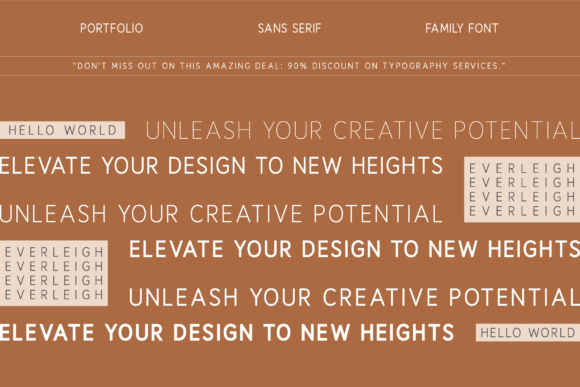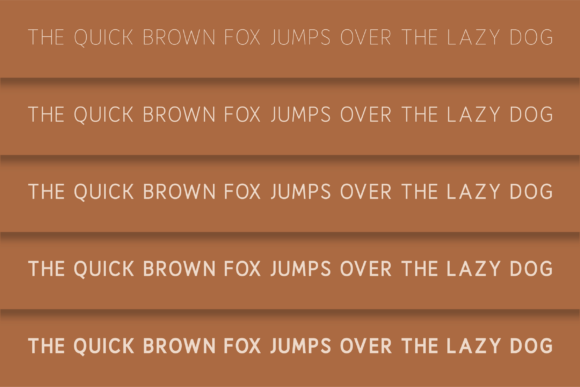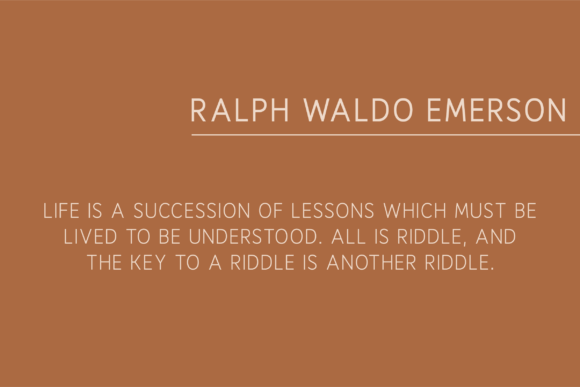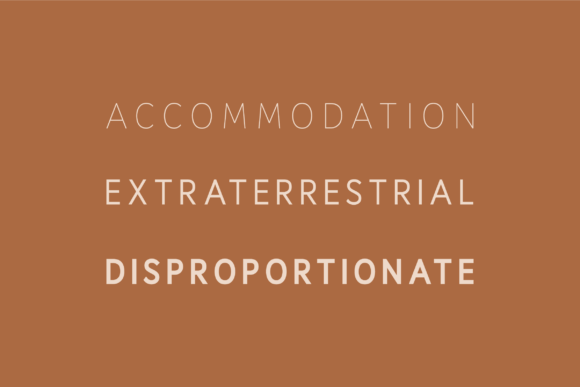
Introducing Everleigh Font Family: A Masterpiece of Elegance and Minimalism
Have you ever been in the middle of a design project, and suddenly, you’re stuck on finding the perfect font? I recall a recent experience where I was working on a magazine layout, and my client requested a font that exuded sophistication and simplicity. After hours of scouring through font libraries, I stumbled upon Everleigh Font, and it was love at first sight! In this article, I’ll share my journey with Everleigh Font, its features, and how to make the most of it in your designs.
What Makes Everleigh Font Special?
Everleigh Font is a meticulously crafted sans-serif font family that redefines modern design. It features 5 distinct weights, offering unparalleled versatility and making it suitable for a wide range of projects, from magazines and logos to film posters and more.
Designed with precision and an eye for detail, Everleigh Font strikes the perfect balance between sophistication and simplicity. This balance allows your creations to exude timeless charm and contemporary luxury.
An Honest Review of Everleigh Font
What I Love About Everleigh Font
- ✨ Versatility: With 5 weights, Everleigh Font adapts seamlessly to various design projects.
- ✅ Elegant and Minimalist: The font’s clean lines and sophisticated feel make it perfect for designs that require a touch of luxury.
- 💡 OpenType Features: Everleigh Font comes with a range of OpenType features, including stylistic alternates and glyphs, which can elevate your designs.
⚠️ While Everleigh Font is incredibly versatile, there are a few things to keep in mind:
- 🤔 Limited Character Set: Some users have noted that the font could benefit from a more extensive character set, particularly for non-English languages.
- ⚠️ Not Ideal for Body Text: Due to its elegant and minimalist design, Everleigh Font might not be the best choice for lengthy body text.
The Backstory of Everleigh Font
Everleigh Font was designed by a team of typographers who aimed to create a font family that embodies the perfect balance between elegance and minimalism. Inspired by classic sans-serif fonts, the team sought to craft a font that would meet the demands of modern design while maintaining a timeless appeal.
| Author | Nan Design |
Q: What is the best use case for Everleigh Font?
A: Everleigh Font is ideal for designs that require a touch of elegance and sophistication, such as magazines, logos, film posters, and luxury branding.
Q: Can I use Everleigh Font for body text?
A: While Everleigh Font can be used for body text, it might not be the best choice due to its elegant and minimalist design. It’s better suited for headlines and titles.
Q: Is Everleigh Font suitable for digital use?
A: Yes, Everleigh Font is suitable for digital use, particularly for designs that require a clean and modern look, such as websites, mobile apps, and digital advertising.